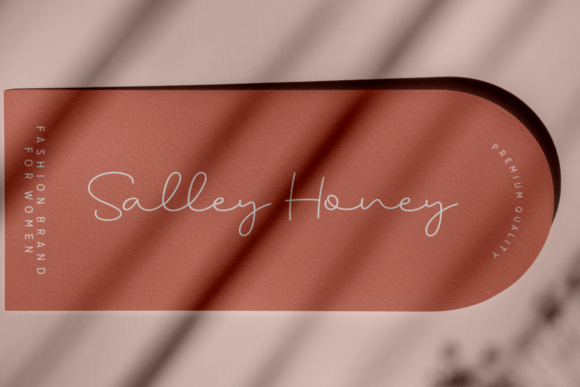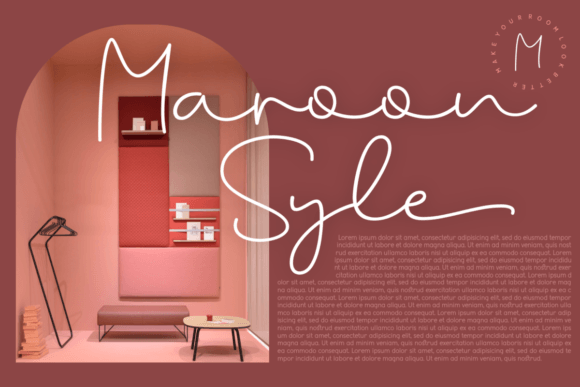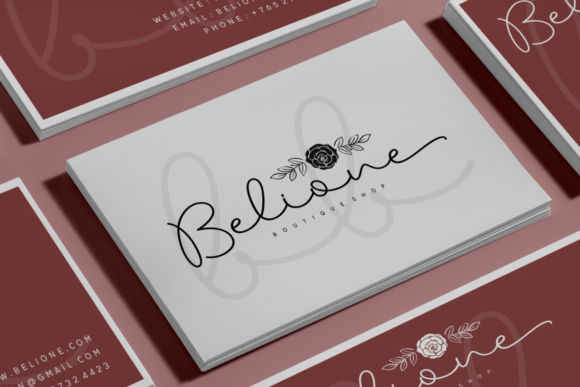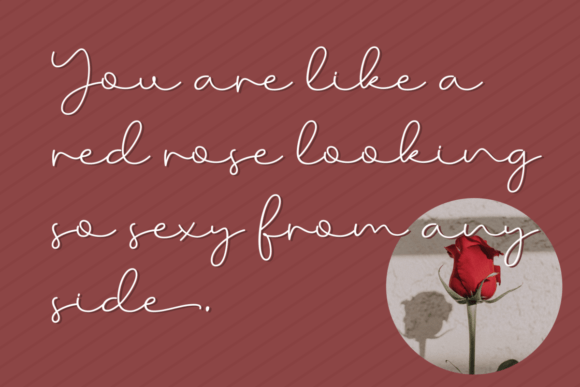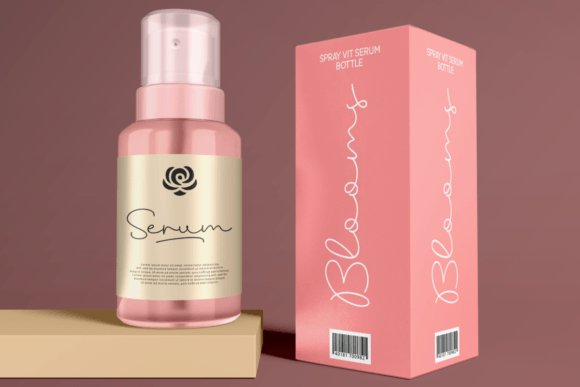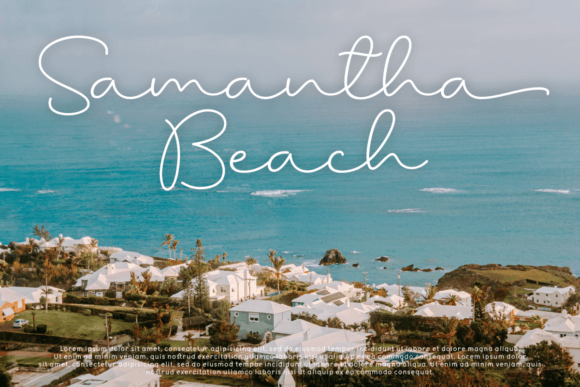
Introduction to Kannisa Font
Kannisa is a dreamy monoline script font.
This stylish calligraphic font is suitable for a wide range of design projects Use it whenever you need to add a delicate, authentic touch to your creations.
Key Features of Kannisa Font
Why Choose Kannisa Font?
Kannisa Font offers exceptional quality and versatility, making it a valuable addition to your design toolkit. Whether you’re creating for personal projects or commercial use, Kannisa Font delivers professional results.